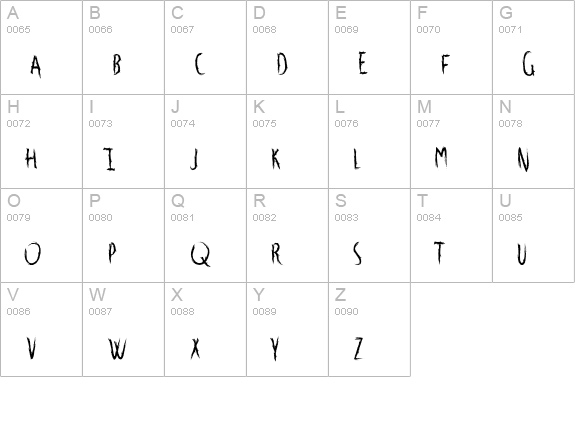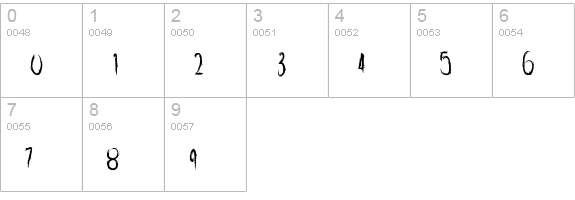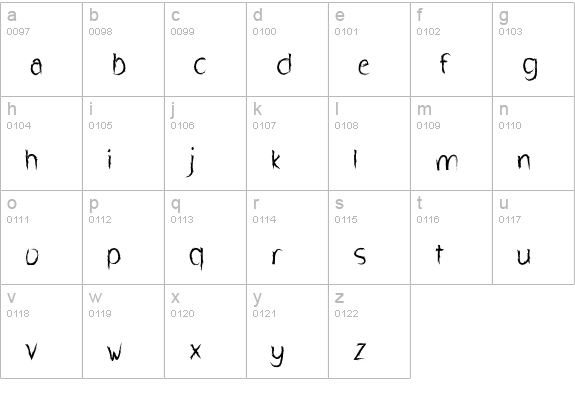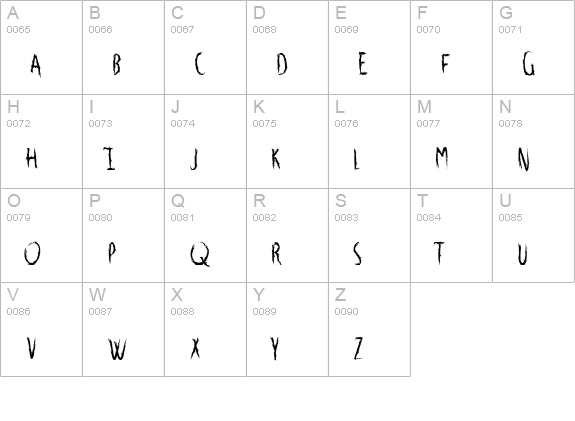
WhippedScream font is a delightful and whimsical typeface that is sure to add a touch of playfulness to any design project. This font is perfect for those looking to create eye-catching headlines, charming invitations, or simply add a dash of fun to their branding materials. With its unique and exaggerated letterforms, WhippedScream font brings a sense of energy and excitement to any text. Each character is carefully crafted with a hand-drawn feel, giving it a distinct personality that is both fun and friendly. What sets WhippedScream font apart is not only its charming design, but also the fact that it is free to download. That's right, this font is freely available at FontsMarket.com, making it accessible to designers and enthusiasts alike. Whether you're a professional designer or a hobbyist, you can now enjoy the whimsical charm of WhippedScream font without any cost. Designed with versatility in mind, WhippedScream font can be used in a variety of design projects. Its bold and playful nature makes it a great choice for children's books, party invitations, or even as an attention-grabbing headline on a website. The possibilities are endless when it comes to incorporating this font into your creative endeavors. So why wait? Download WhippedScream font today and let your imagination run wild. With its free availability at FontsMarket.com, you can start adding a touch of whimsy and fun to your designs without breaking the bank. Embrace the playful spirit of WhippedScream font and watch your designs come to life with a sprinkle of joy.